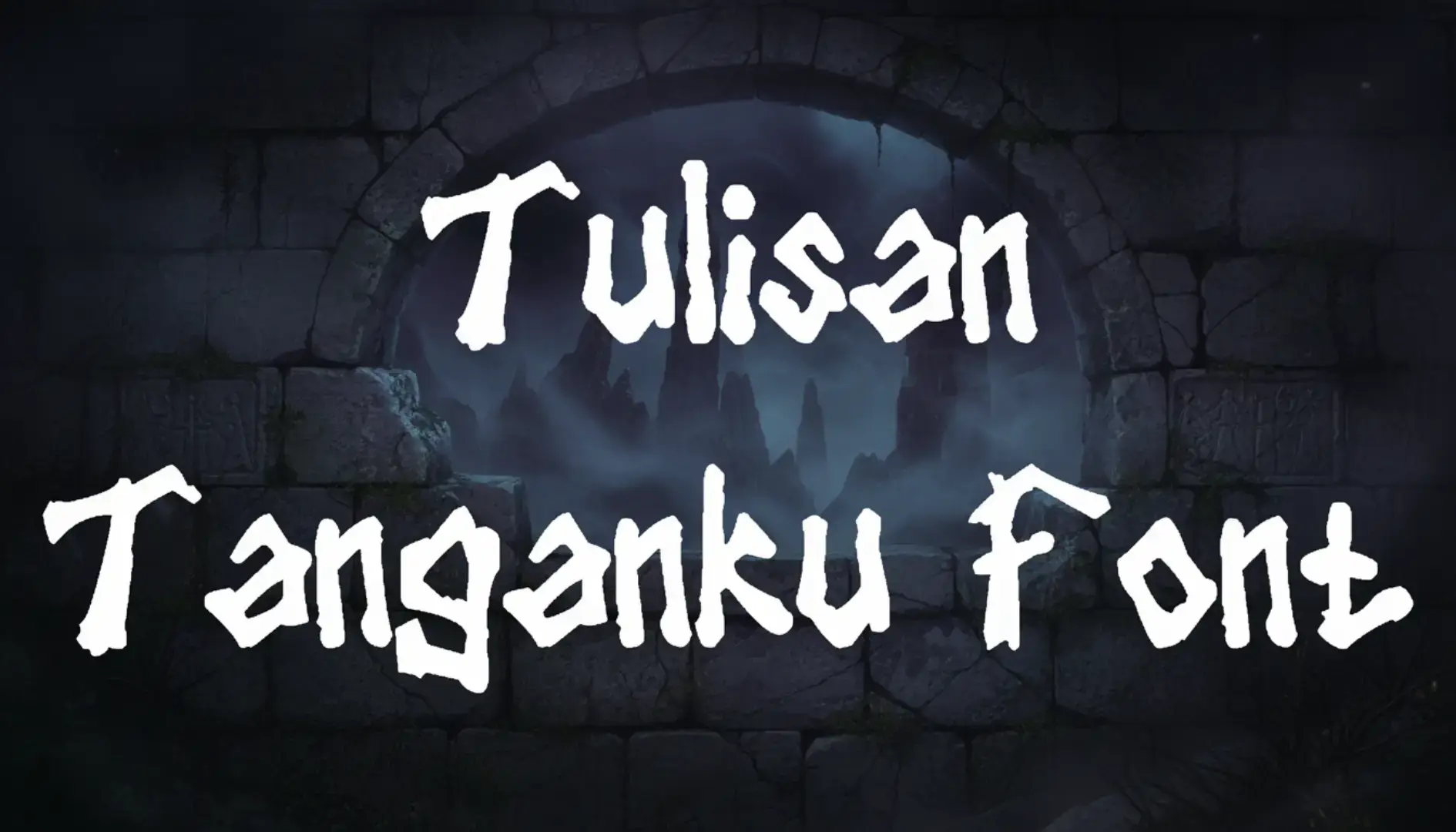
Tulisan Tanganku Font
Tulisan Tanganku is a foreign look font. It gives English letters a style inspired by Asian brush lettering and signage. You can download it for free and test it with your own words in the preview above.
What You Can Type With Tulisan Tanganku
With complete upper and lowercase letters and all ten digits, Tulisan Tanganku is ready for real wording, not just a single headline. Common punctuation such as &, !, ? and @ is included as well. It also has the accented letters you need for Spanish, French, German, Portuguese and Italian. On top of that, it includes Greek and Cyrillic characters.
Where Tulisan Tanganku Works Best
Think of Tulisan Tanganku for designs with an international feel. Most fonts in this style use English letters with an Asian-inspired look, not real Chinese or Japanese characters, so check the character map before you plan on that.
Does Tulisan Tanganku support accented letters?
Yes. Tulisan Tanganku includes the accented letters needed for Spanish, French, German, Portuguese and Italian, so it works for more than just English.
What fonts pair well with Tulisan Tanganku?
A clean sans serif keeps menus and other longer text easy to read.